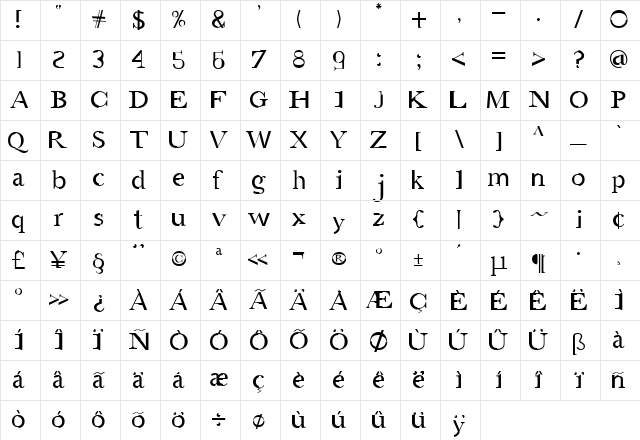
AMGaea Regular Free Font
AMGaea Regular
Foundry: Angela Michanitzi
Designer: Angela Michanitzi
Design Context for AMGaea
AMGaea is a composed and adaptable typeface that performs quietly and consistently across a wide range of design contexts.
Who designed the AMGaea Regular font?